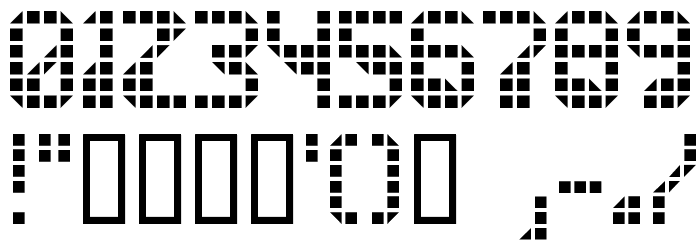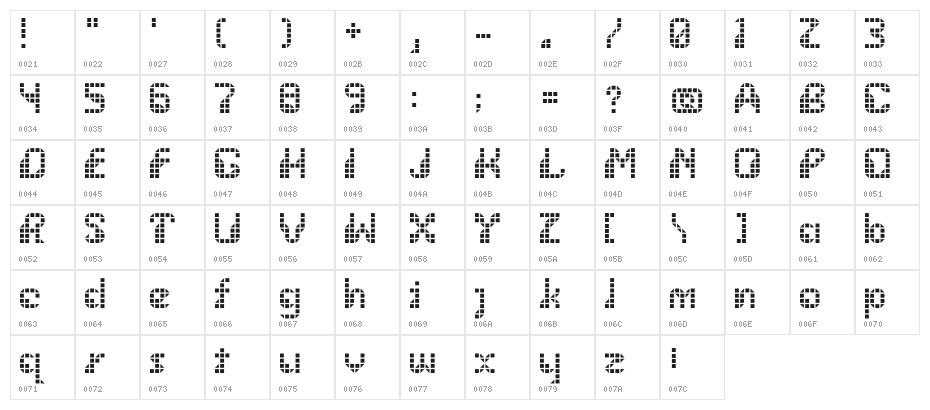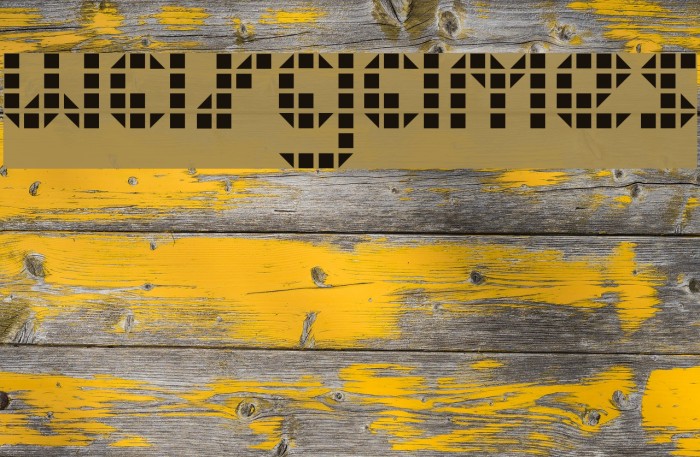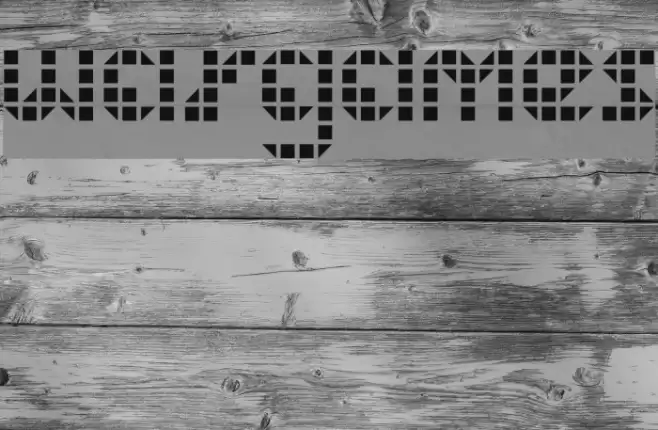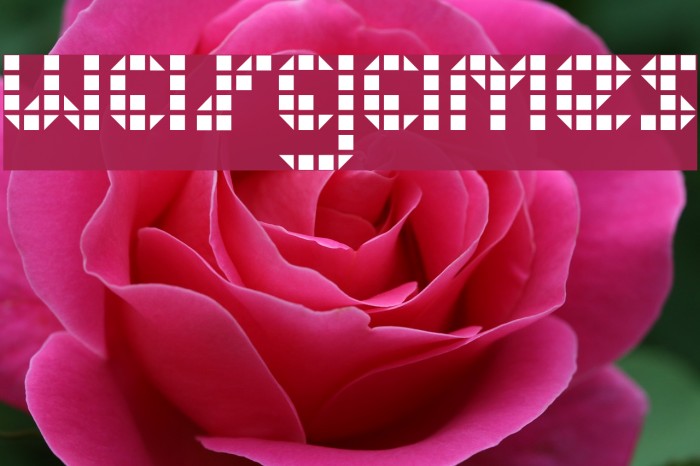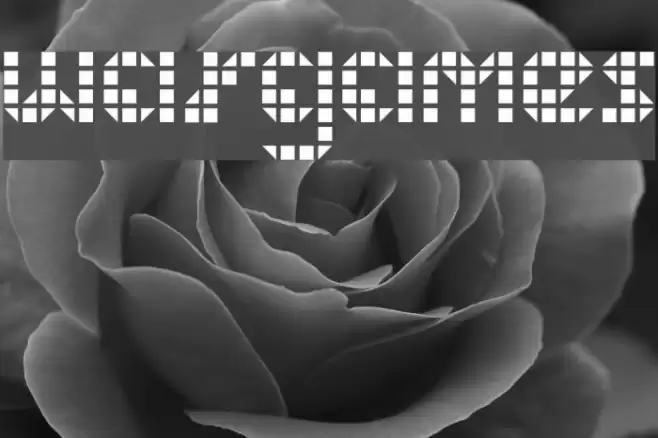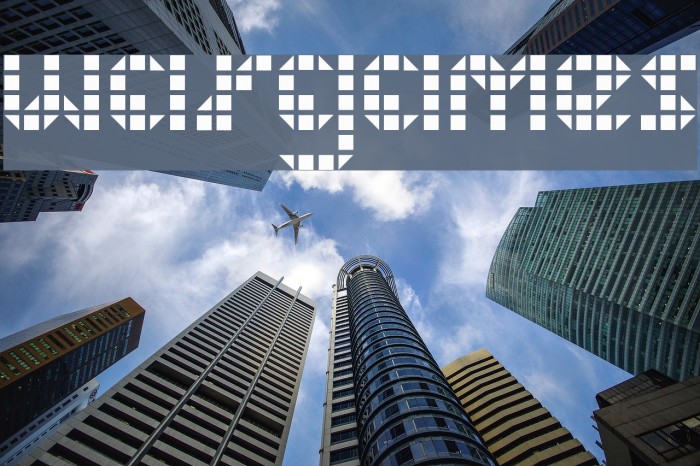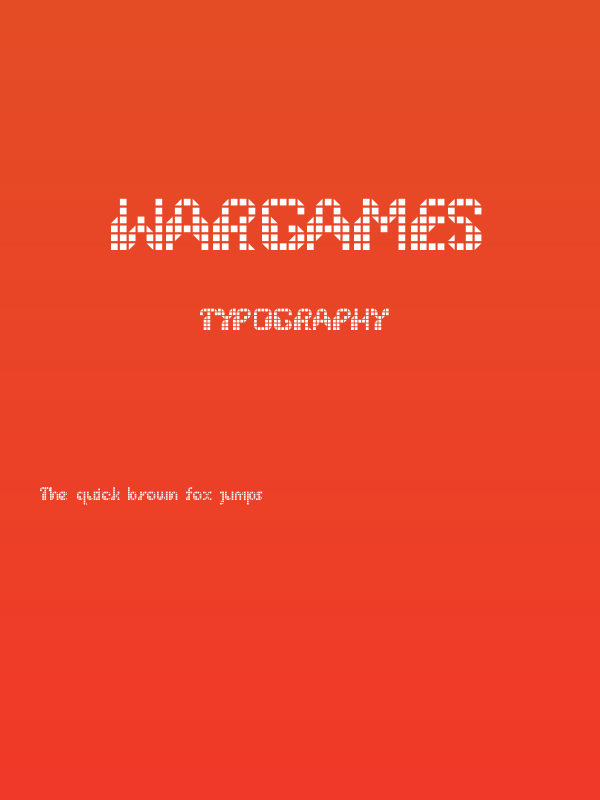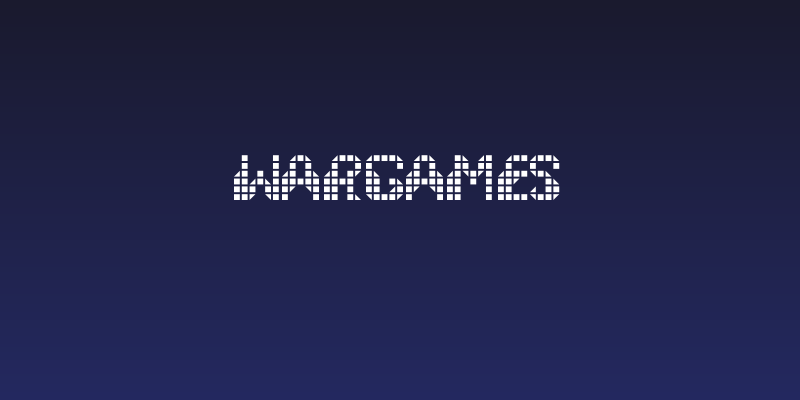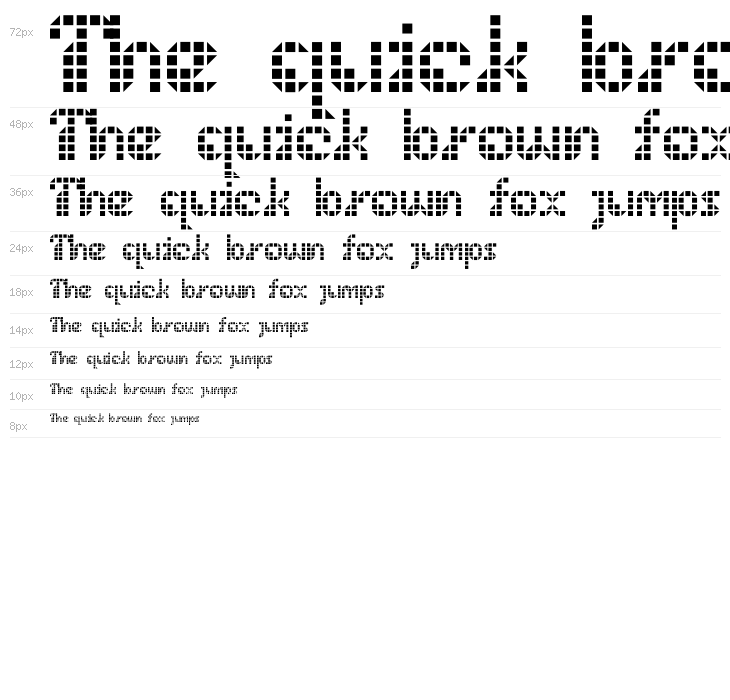
wargames Font
wargames Description
This font features a unique, pixelated design that mimics the appearance of digital displays or early computer graphics. Each character is constructed from a grid of small squares, giving it a distinctly retro, technological feel. The uppercase and lowercase letters maintain a consistent style, with sharp angles and a blocky structure. Numbers and special characters follow the same pixelated pattern, ensuring uniformity across the entire character set. This font is ideal for projects that aim to evoke nostalgia for early computing or to create a futuristic, digital aesthetic.
| Proposed Projects | Ideal for video game design, tech-themed posters, retro-style branding, and digital art projects. |